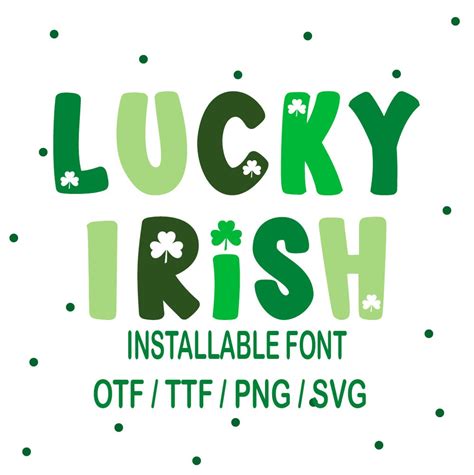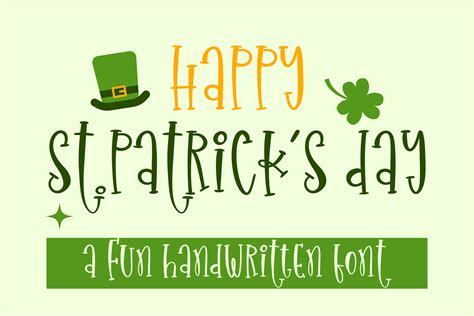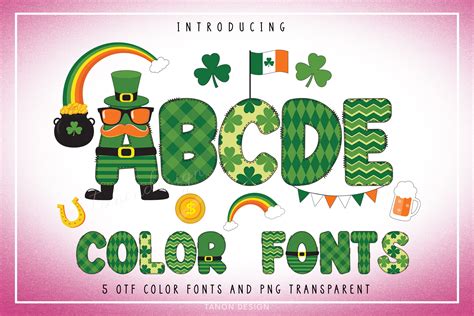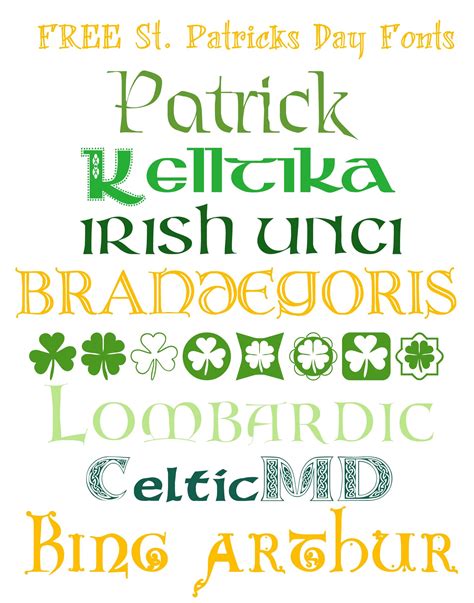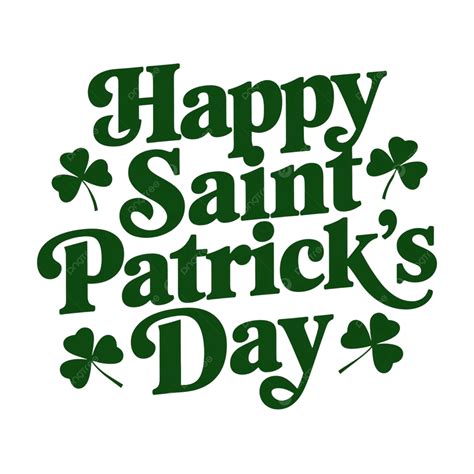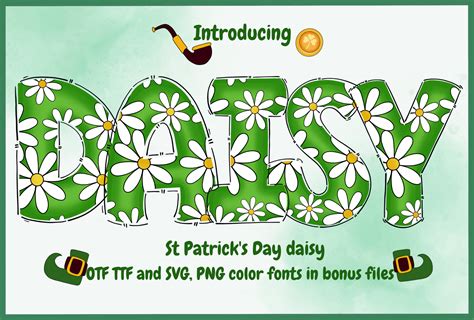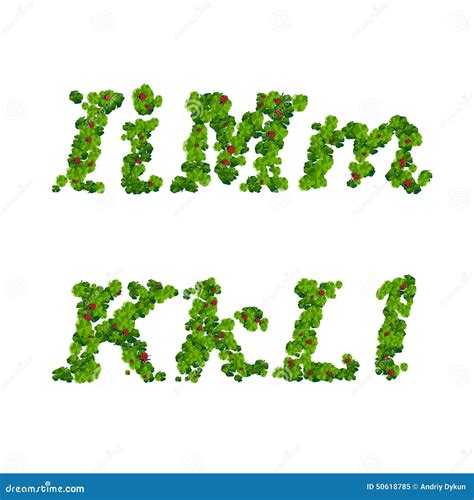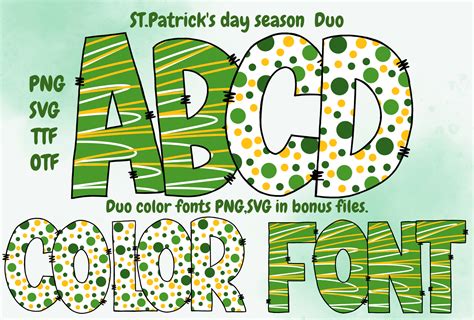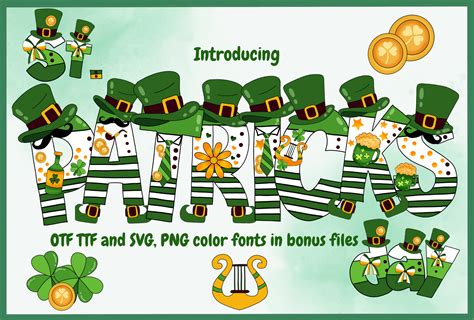
St. Patrick's Day is a vibrant celebration of Irish culture, and one of the most exciting aspects of this holiday is the creative use of typography. A St Patrick's Day font can transform your designs, whether you're creating invitations, posters, or digital graphics. This post will guide you through the world of St. Patrick's Day fonts, helping you understand their significance, how to choose the right one, and how to use them effectively in your projects.
Understanding St. Patrick's Day Fonts
St. Patrick's Day fonts are designed to evoke the spirit of Ireland, incorporating elements that are synonymous with the holiday. These fonts often feature:
- Celtic knots and other traditional Irish symbols
- Irish-themed illustrations, such as shamrocks and harps
- Bold, festive colors like green, gold, and white
- Textures that mimic parchment, stone, or other rustic materials
These fonts are not just about aesthetics; they also carry cultural significance. They help to preserve and promote Irish heritage, making them an essential part of St. Patrick's Day celebrations.
Choosing the Right St. Patrick's Day Font
With so many options available, choosing the right St Patrick's Day font can be a daunting task. Here are some factors to consider:
- Purpose: What is the font for? Is it for a formal invitation, a fun party poster, or a digital graphic? Different purposes require different styles.
- Audience: Who will be reading the text? Consider their preferences and what will appeal to them.
- Legibility: Ensure the font is easy to read. While decorative fonts can be fun, they should not compromise readability.
- Style: Match the font style to the overall theme of your project. For example, a rustic, hand-drawn font might be perfect for a traditional Irish-themed event, while a modern, sleek font could be better for a contemporary celebration.
Here's a simple table to help you decide:
| Purpose | Recommended Font Style |
|---|---|
| Formal Invitations | Elegant, classic fonts with Celtic knots or Irish symbols |
| Party Posters | Bold, festive fonts with bright colors and fun illustrations |
| Digital Graphics | Modern, clean fonts with a touch of Irish charm |
Using St. Patrick's Day Fonts Effectively
Once you've chosen the perfect St Patrick's Day font, it's time to use it effectively in your projects. Here are some tips:
- Pairing Fonts: If you're using more than one font, make sure they complement each other. A good rule of thumb is to pair a decorative font with a simple, readable font.
- Color Scheme: Stick to a color scheme that matches the font and the overall theme. Green, gold, and white are traditional St. Patrick's Day colors, but you can also incorporate other shades for a unique look.
- Size and Spacing: Ensure the font size is appropriate for the medium. For example, a font that looks great on a poster might be too small for a digital graphic. Also, pay attention to letter spacing (kerning) to avoid text that is too cramped or too spread out.
- Consistency: Use the font consistently throughout your project. This helps to create a cohesive look and makes your message more impactful.
Creating Your Own St. Patrick's Day Font
If you can't find a font that fits your vision, consider creating your own. Here's a simple guide to get you started:
- Sketch Your Design: Start by sketching your font design on paper. This will help you visualize the final product and make any necessary adjustments.
- Choose Your Tools: There are many tools available for creating fonts, both free and paid. Some popular options include FontForge, Glyphs, and Adobe Illustrator.
- Digitize Your Design: Once you're happy with your sketch, it's time to digitize it. This involves tracing your design on your chosen tool and refining it until it's perfect.
- Test Your Font: Before using your font in a project, test it out to ensure it's readable and works well with other fonts.
Inspiration for St. Patrick's Day Fonts
Looking for some inspiration? Here are a few ideas to get your creative juices flowing:
- Celtic Knots: Incorporate Celtic knots into your font design for a traditional Irish look. These knots can be used as decorative elements or as part of the letterforms themselves.
- Shamrocks: Shamrocks are a classic symbol of St. Patrick's Day. You can use them as accents in your font or as part of the letterforms.
- Irish Landscapes: Draw inspiration from the beautiful Irish countryside. Use elements like rolling hills, cliffs, and coastlines in your font design.
- Irish Music: Irish music is known for its lively rhythms and melodies. Consider incorporating musical notes or instruments into your font design.